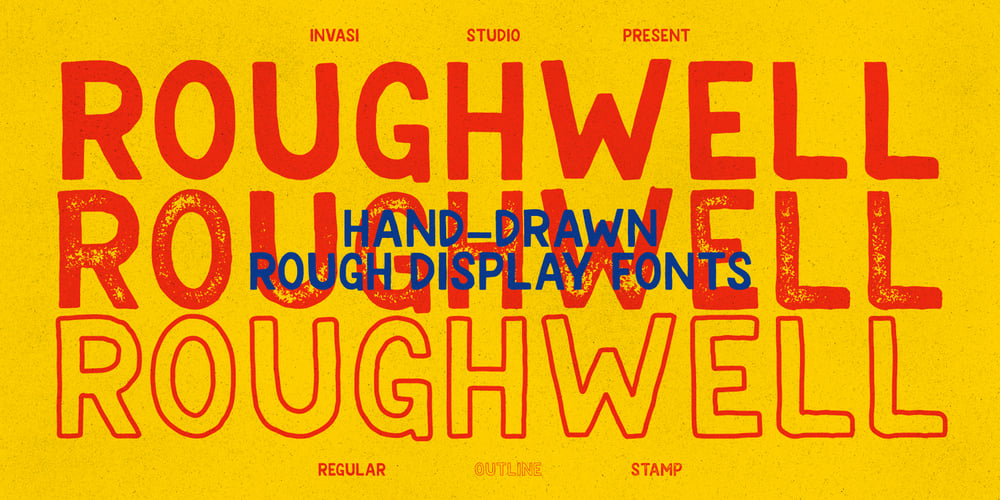
Roughwell Font Family was designed by Gha Arizal and published by Invasi Studio. Roughwell contains 3 styles and family package options. Roughwell Family is a rough hand-drawn display font with a retro stamp character. As a result, carefully crafted styles develop. The imperfections keep it casual but it is still legible. It can be easily matched to an incredibly wide range of projects, so give it a try and see how it boosts your creative ideas! It’s ideal for headlines, flyers, posters, greeting cards, product packaging, book covers, printed quotes, logotype, and album covers, among other applications.